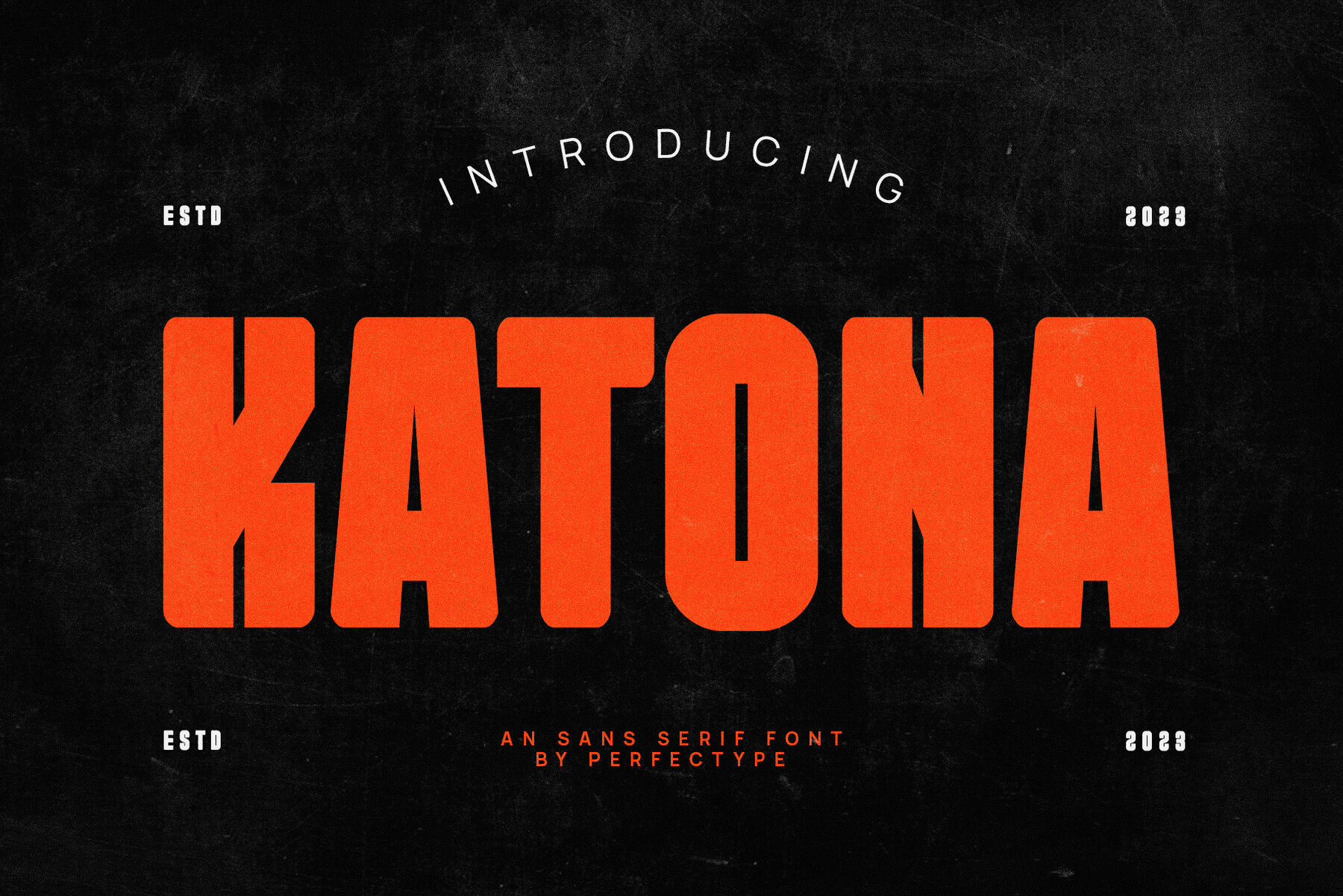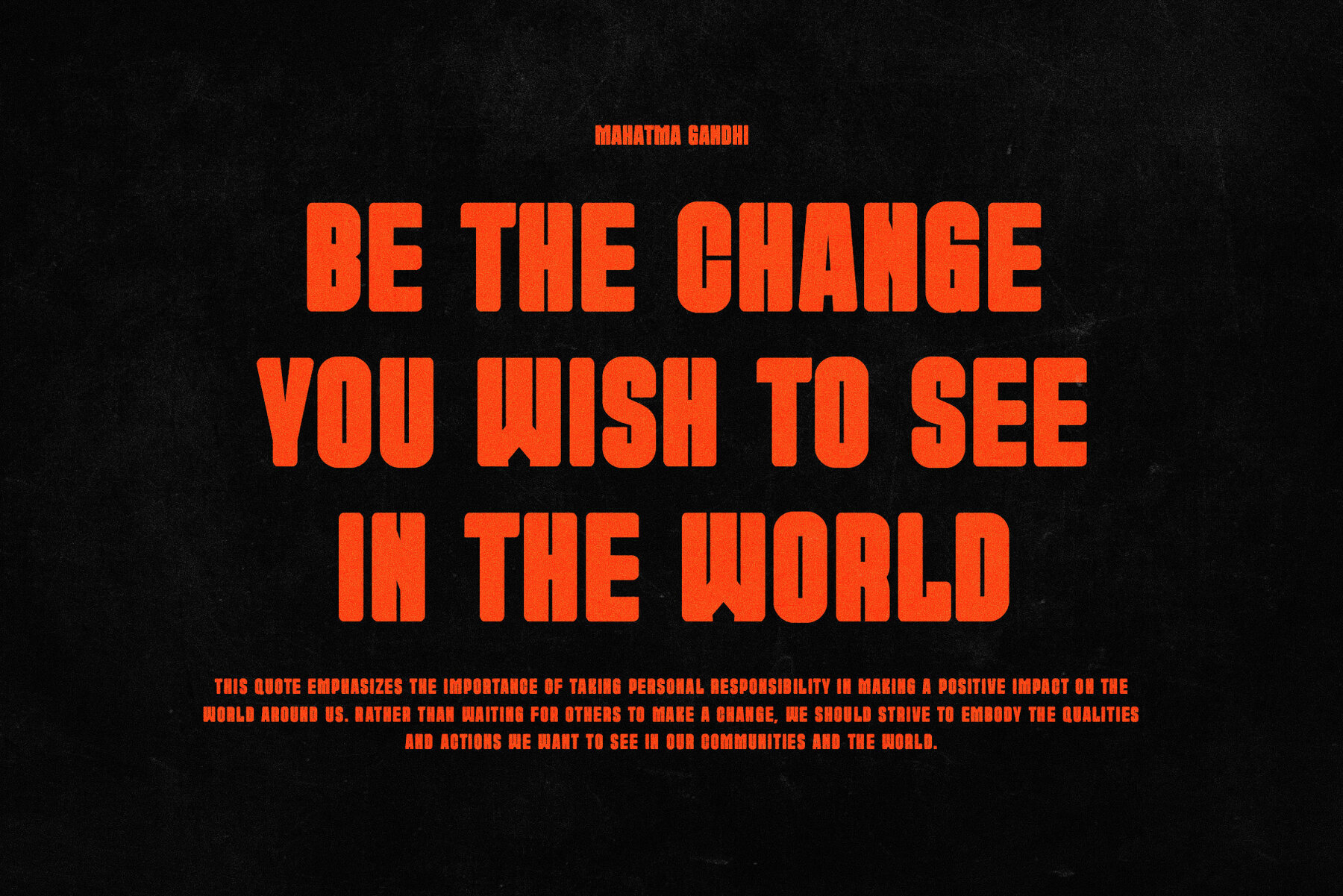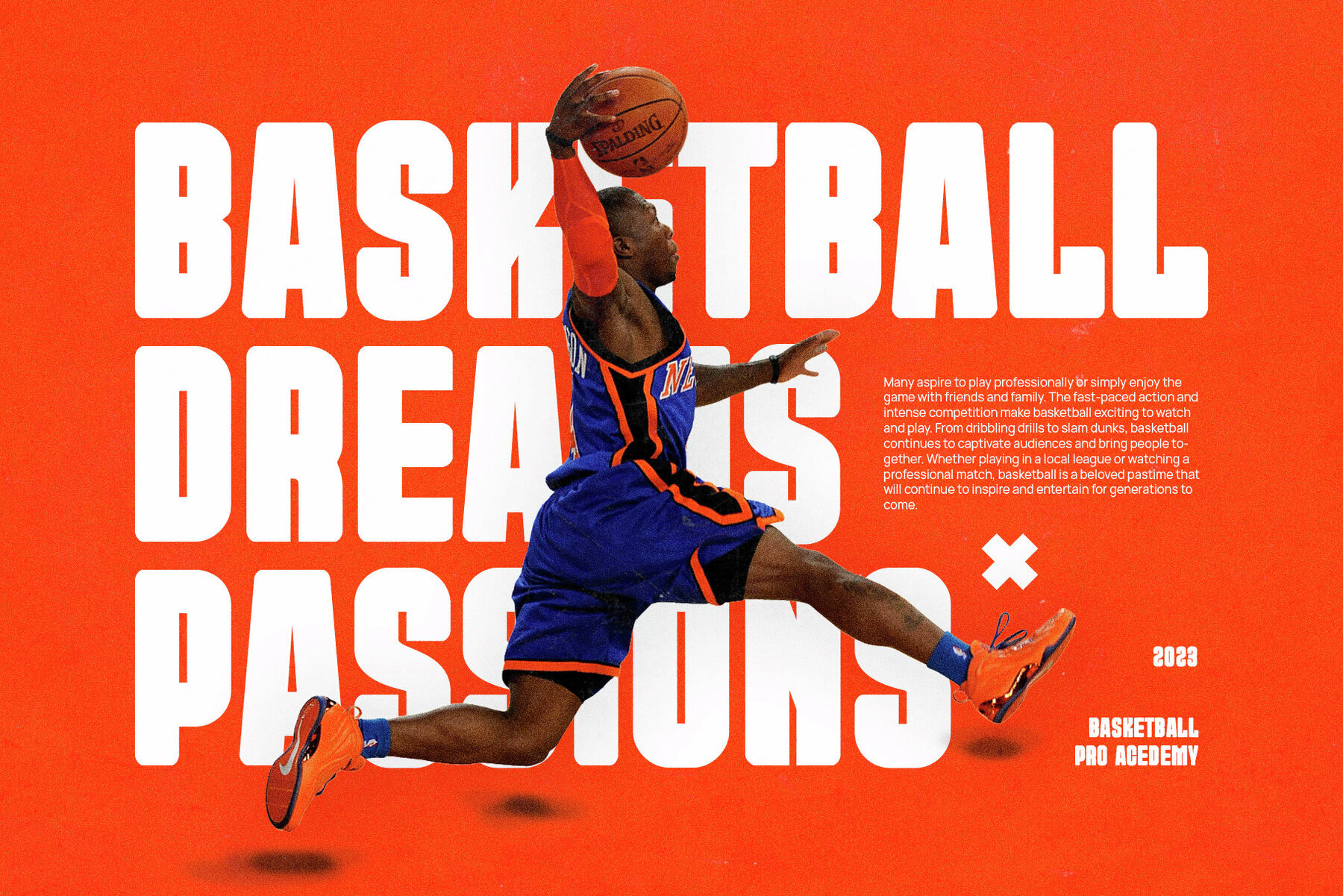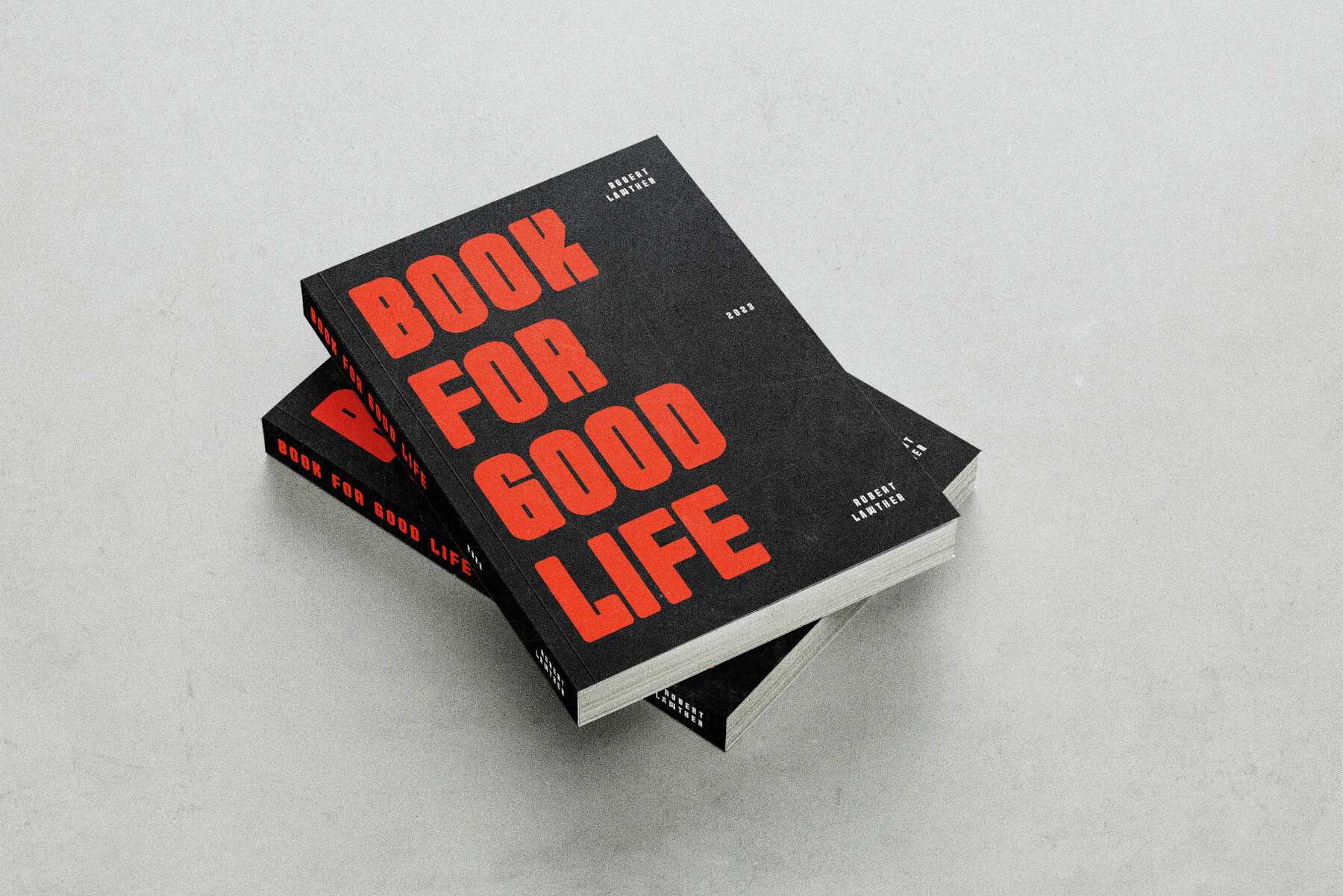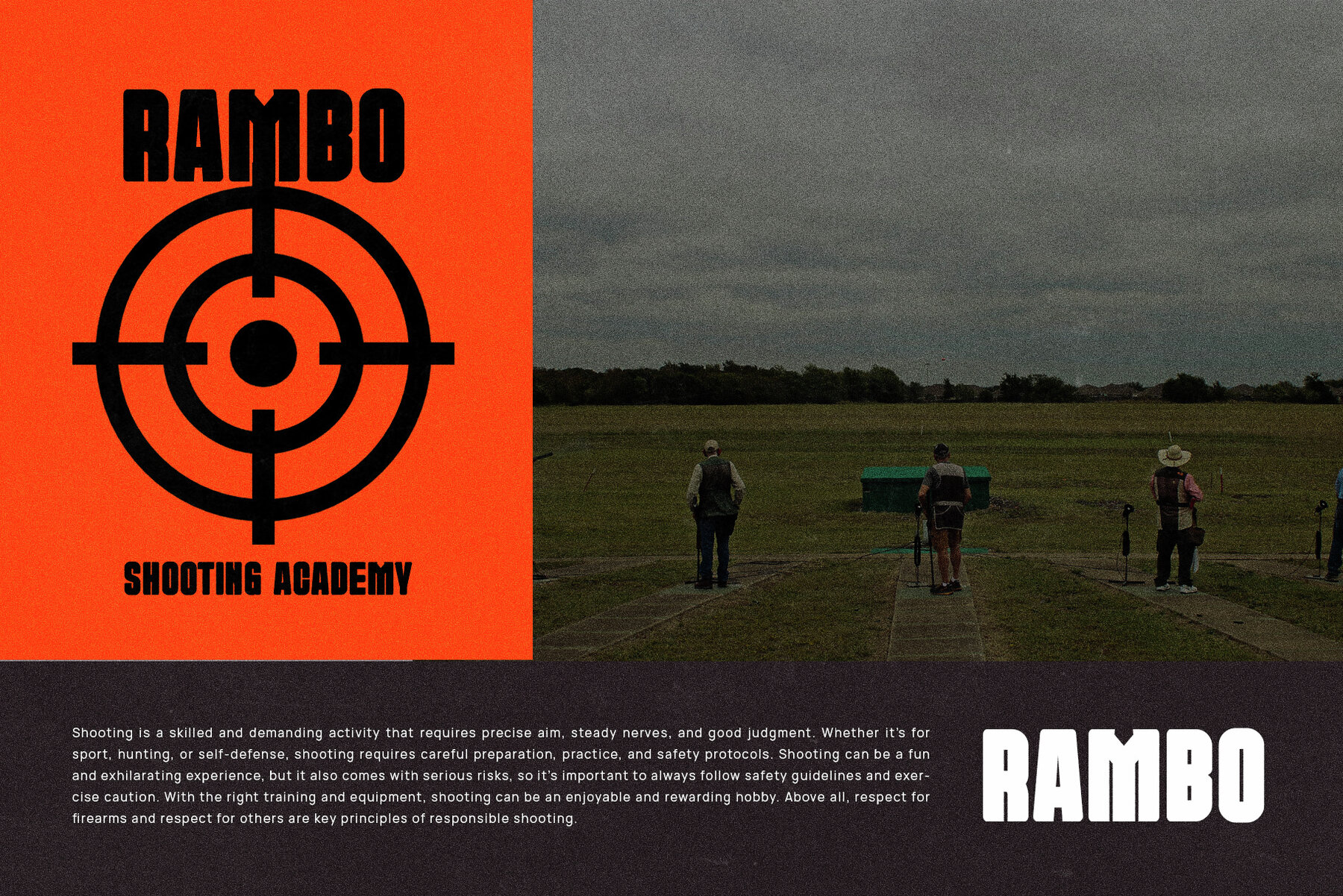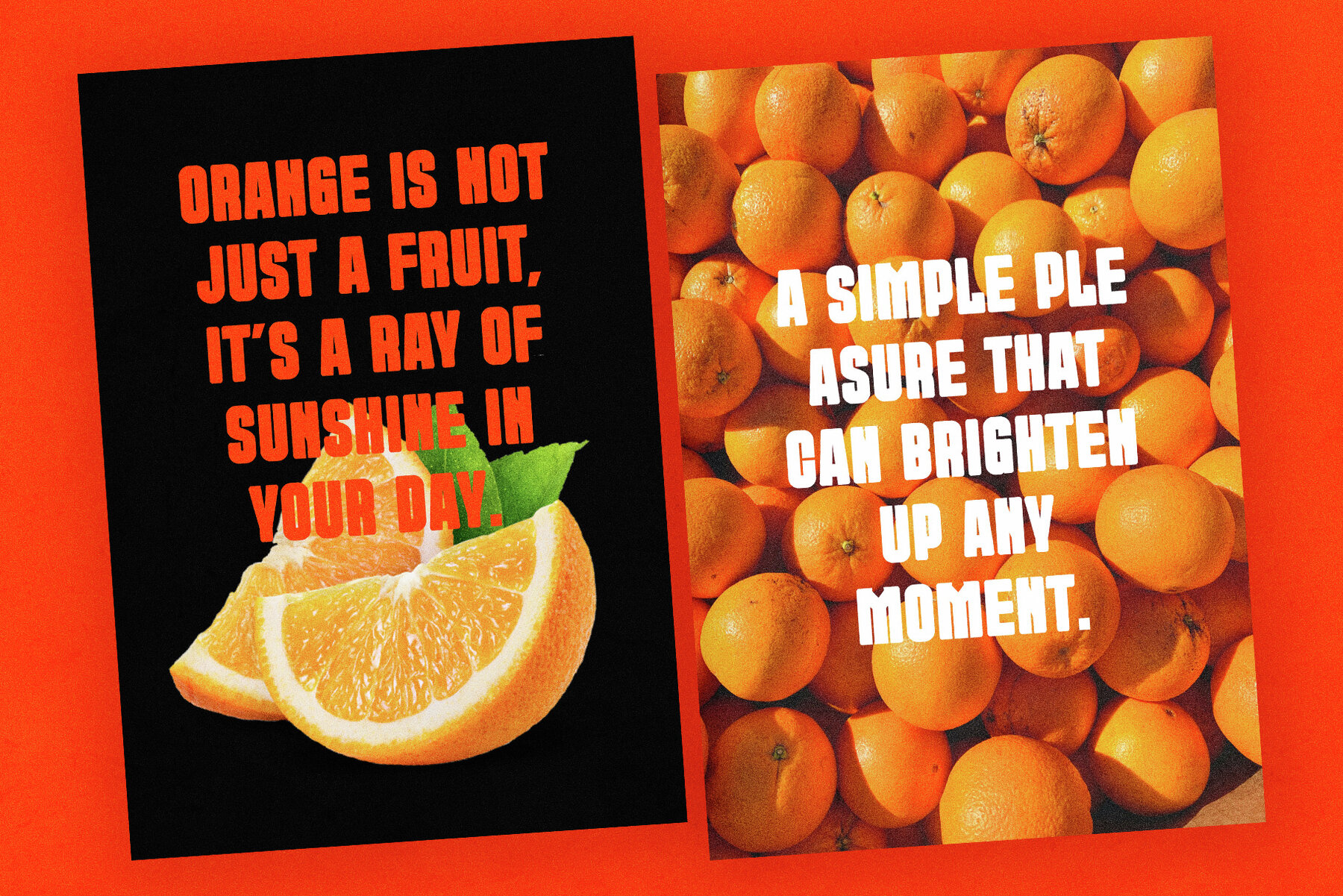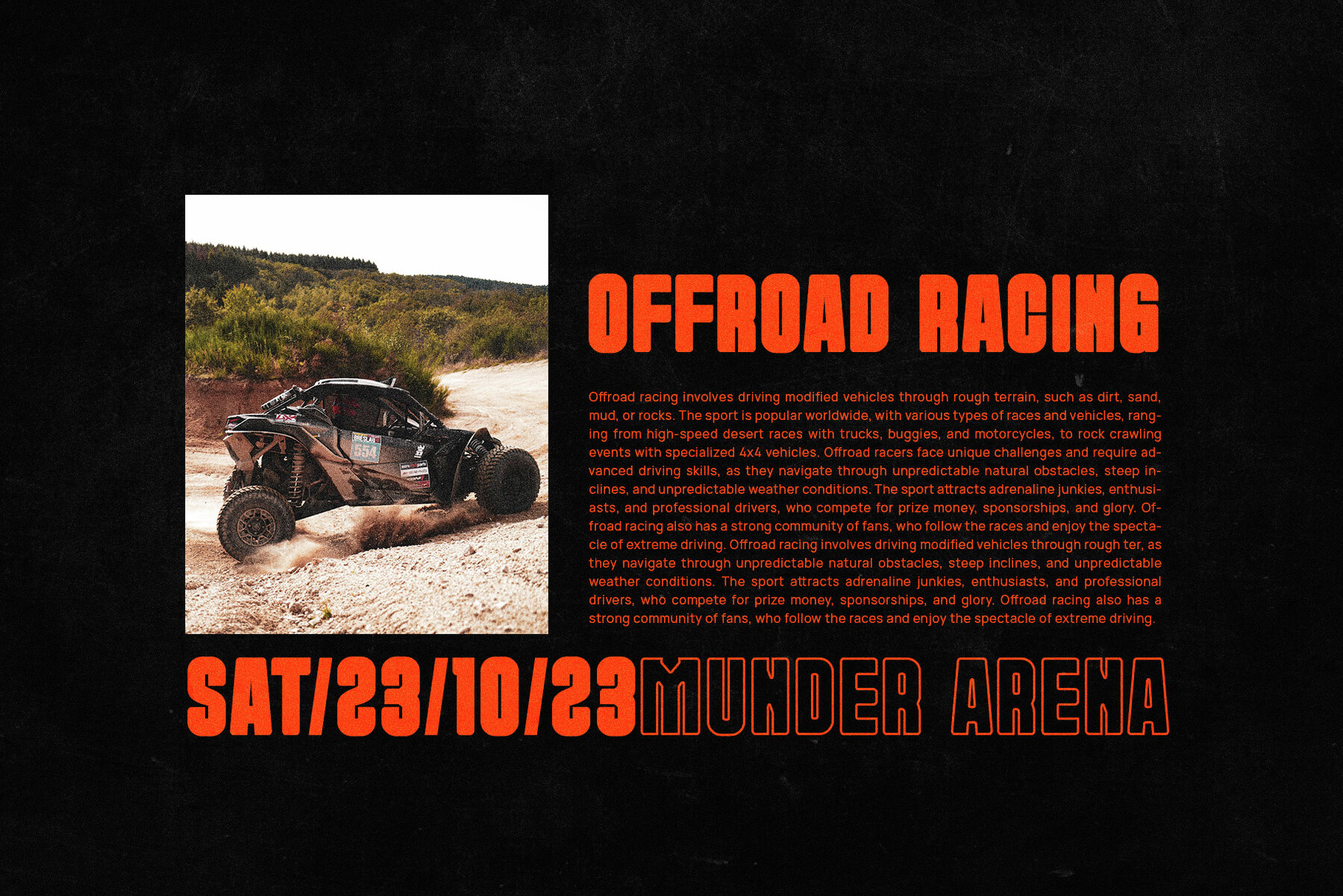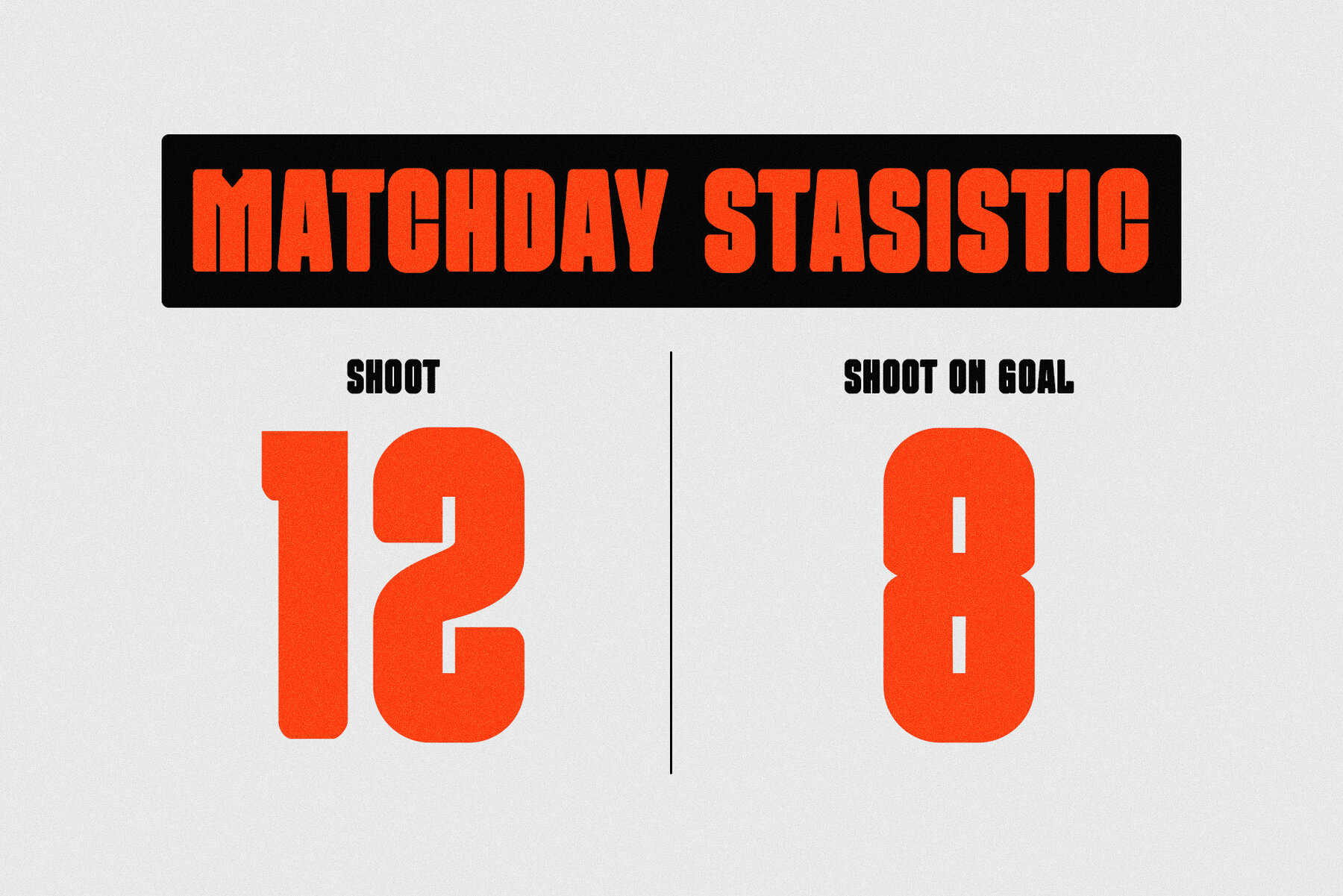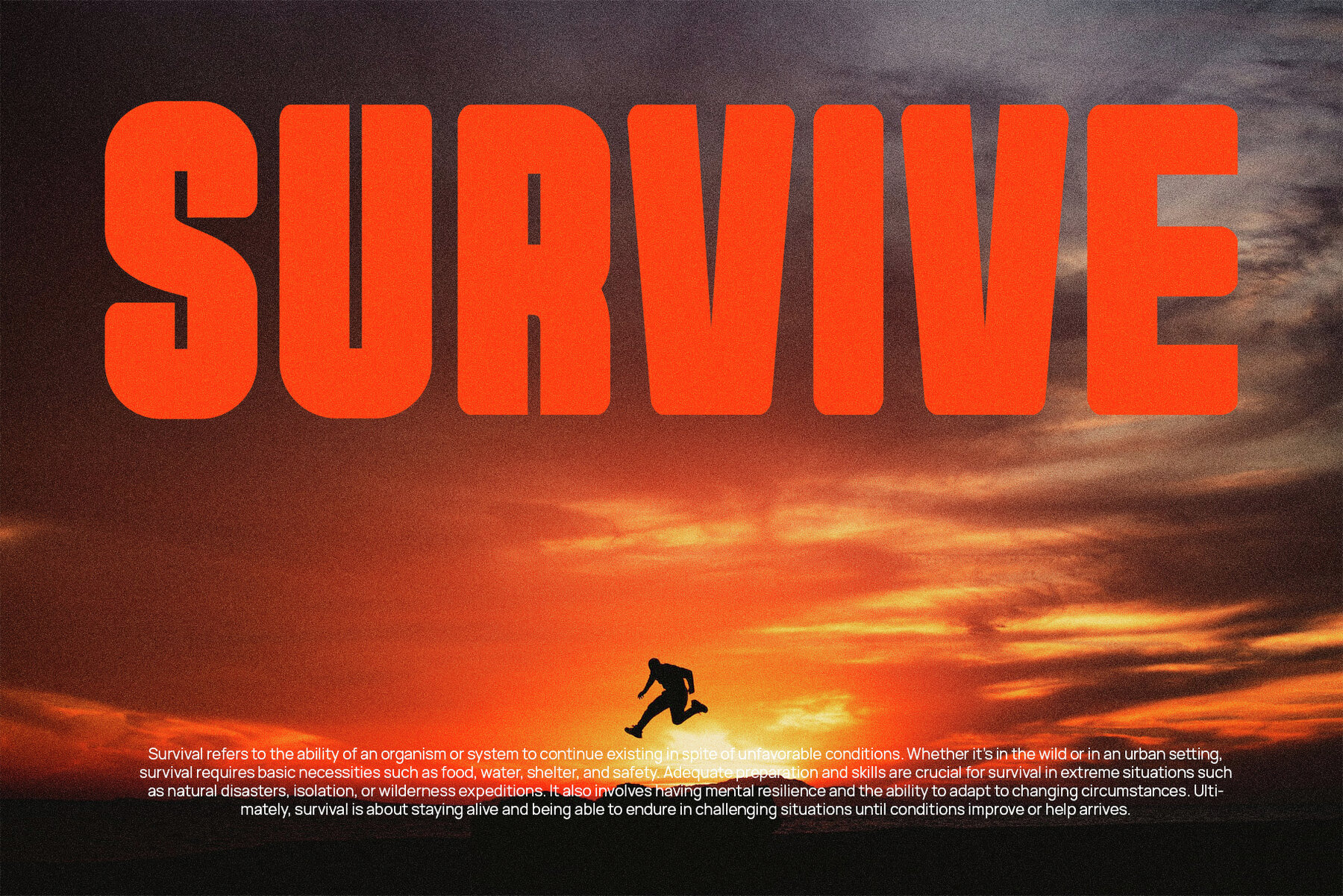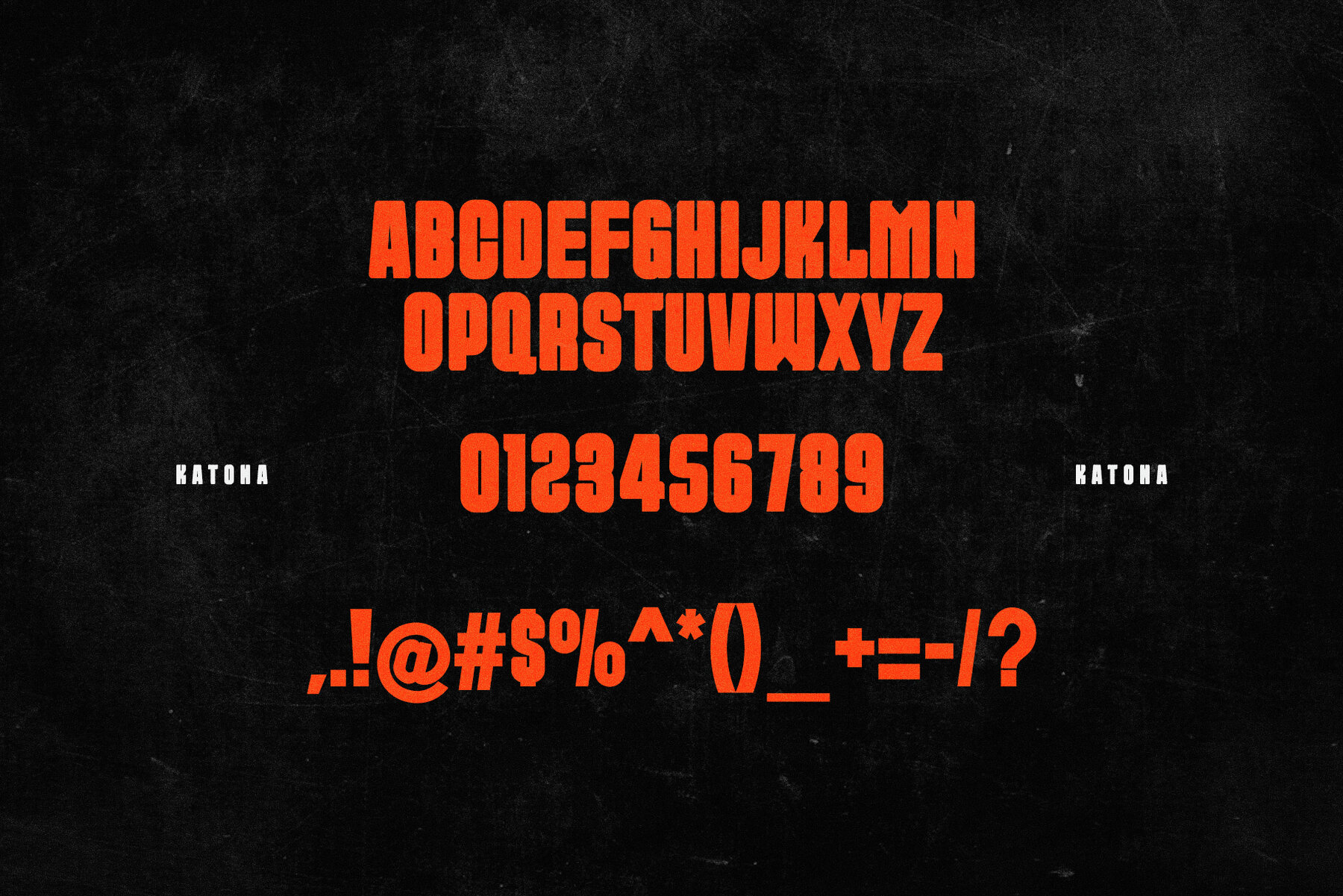
Katona Font
Katona Regular
Katona is a carefully crafted sans serif font designed with balance and high readability in mind. Its neatness and detailed philosophy make it an excellent choice for various branding needs. Whether designing brochures, videos, advertising brands, or creating logos and magazine layouts, Katona adapts seamlessly to any graphic design purpose. For the best results, using Adobe Illustrator or Adobe Photoshop is recommended. If you have any questions, feel free to reach out for assistance.Katona: A Versatile Sans Serif Font
Features of Katona